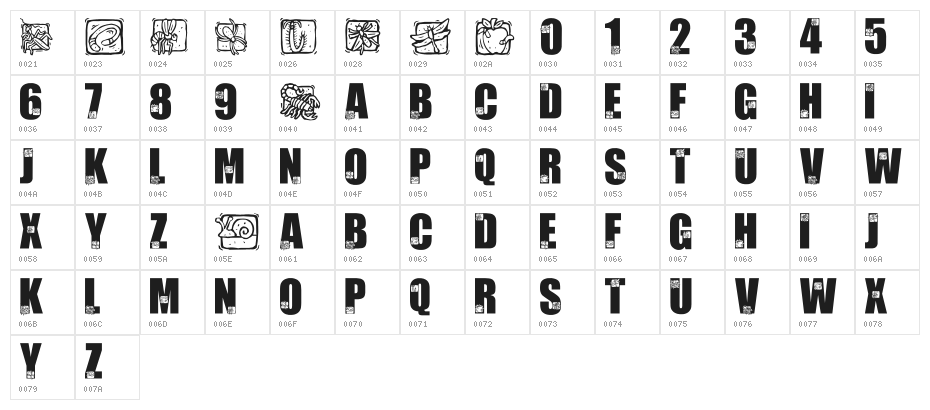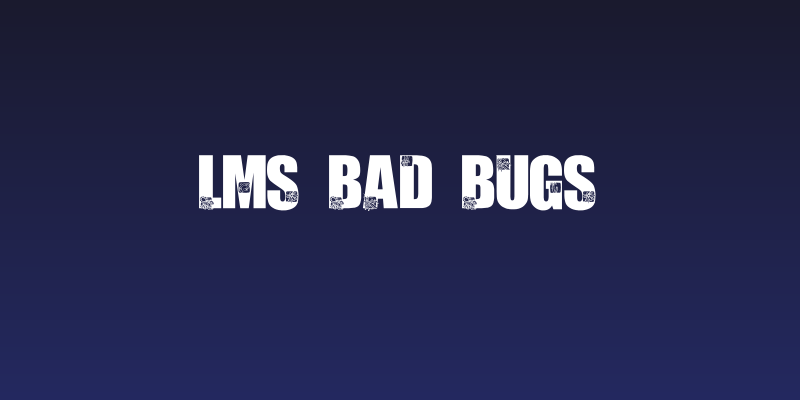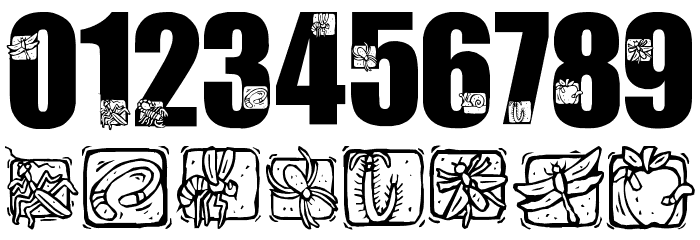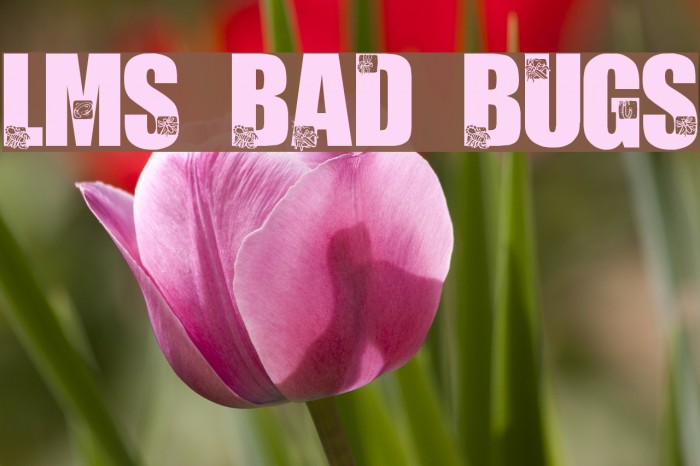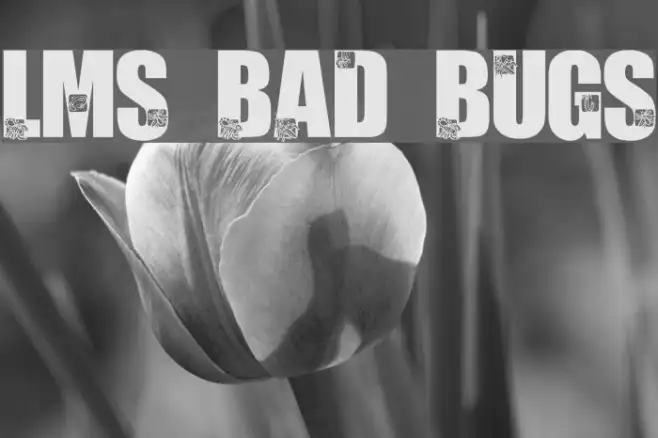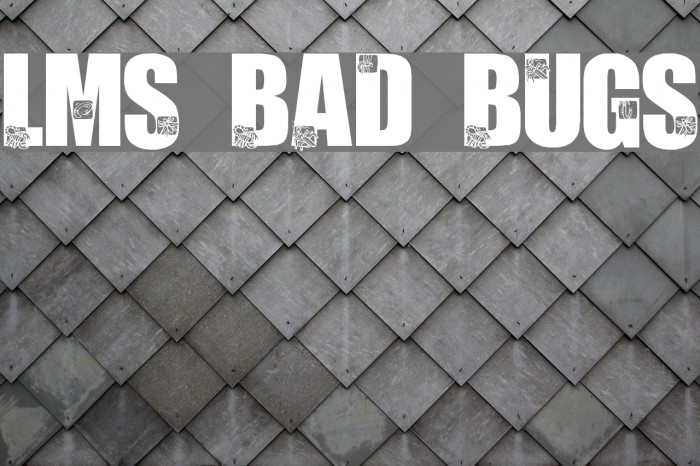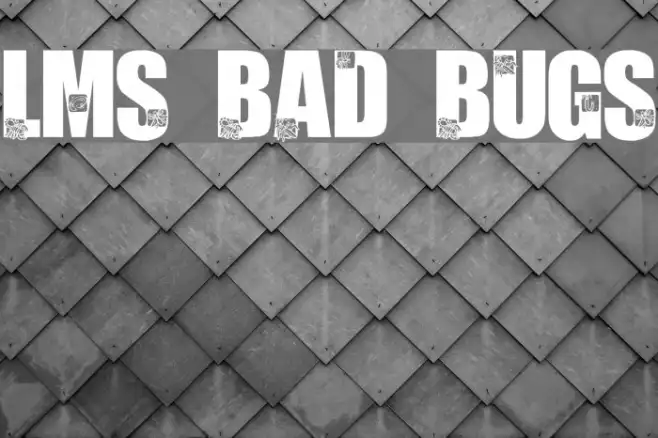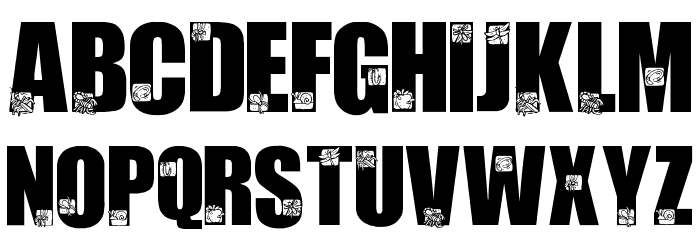
LMS Bad Bugs Font
LMS Bad Bugs Description
This font features bold, blocky letters with a unique twist: each character is adorned with intricate bug illustrations. The uppercase and lowercase letters maintain a consistent, heavy weight, making them stand out prominently. The numbers follow the same bold style, ensuring uniformity across all characters. The special characters are creatively designed with bug motifs, adding a playful and decorative element. The overall appearance is eye-catching and whimsical, perfect for projects that require a touch of nature-inspired creativity.
| Proposed Projects | Ideal for children's books, nature-themed posters, creative event invitations, and educational materials. |